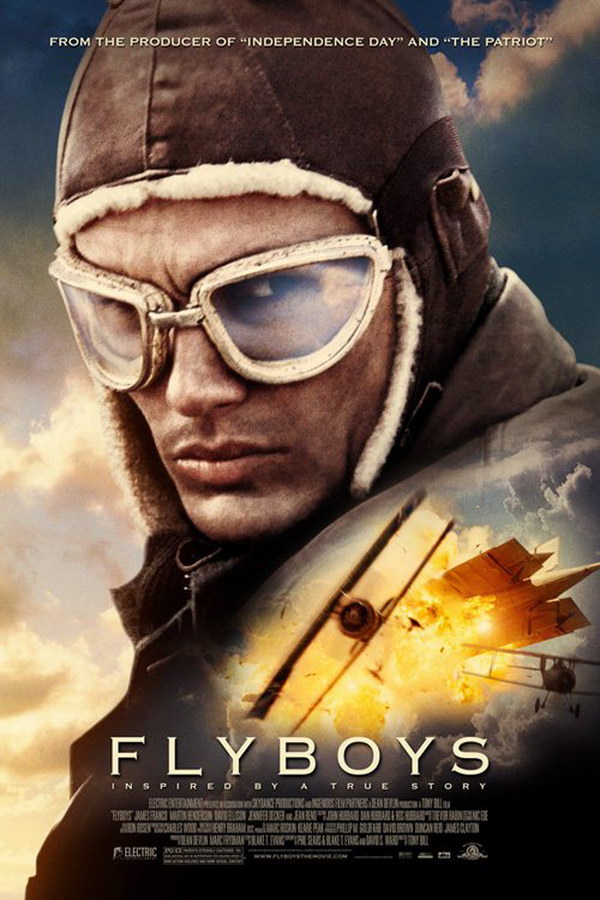
Flyboys Font
ActionFlyboys is a 2006 war drama film set during World War I, directed by Tony Bill. The screenplay is about the adventures of the Lafayette Escadrille, young Americans who volunteered for the French military before the U.S. entered World War I, and became the country's first fighter pilots.
Copperplate Gothic, designed by Frederic W. Goudy in 1901, is probably used for the Fly Boy movie title in the poster. The typeface, known as Gothic, has very small serifs even though it is referred to as sans-serif. You can view more details about it here.